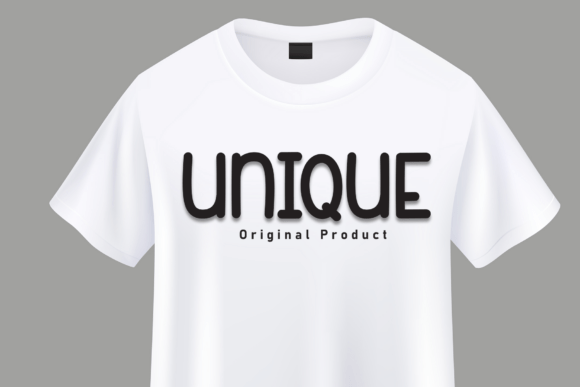
Discover the Power of Simple Minimalis Font and Bold Script Fonts in Design
In the world of typography, fonts play a crucial role in conveying messages, expressing emotions, and creating visual identities. Two popular font styles that have gained significant attention in recent years are Simple Minimalis Font and bold script fonts. In this article, we’ll explore the characteristics, uses, and benefits of these fonts, and how they can elevate your design game.
What is Simple Minimalis Font?
Simple Minimalis Font is a type of font that embodies the principles of minimalism. It is characterized by clean lines, simple shapes, and a limited color palette. This font style is perfect for designs that require a subtle yet sophisticated touch. Simple Minimalis Font is often used in branding, advertising, and digital media, as it provides a clear and concise visual message.
The simplicity of this font style makes it highly versatile, allowing it to be used in various design contexts, from logos and typography to social media graphics and website headers. Its understated elegance ensures that the focus remains on the content, rather than the font itself.
Benefits of Using Simple Minimalis Font and Bold Script Fonts
Using Simple Minimalis Font and bold script fonts in your designs can have several benefits, including:
- Improved Readability: Simple Minimalis Font and bold script fonts are highly legible, making them perfect for designs that require clear communication.
- Enhanced Visual Appeal: These font styles can add a touch of sophistication and elegance to your designs, making them more visually appealing.
- Boosted Brand Identity: Using a consistent font style across your designs can help establish a strong brand identity and create a cohesive visual message.
- Increased Versatility: Simple Minimalis Font and bold script fonts can be used in various design contexts, making them highly versatile and adaptable.
Tips for Using Simple Minimalis Font and Bold Script Fonts
Here are some tips for using Simple Minimalis Font and bold script fonts in your designs:
- Use Simple Minimalis Font for Body Text: Simple Minimalis Font is perfect for body text, as it provides a clear and concise visual message.
- Use Bold Script Fonts for Headlines: Bold script fonts are perfect for headlines and titles, as they add a touch of sophistication and elegance.
- Experiment with Font Pairings: Experiment with pairing Simple Minimalis Font and bold script fonts with other font styles to create a unique and visually appealing design.
- Consider the Context: Consider the design context and audience when choosing a font style. For example, a bold script font may be more suitable for a luxury brand, while a Simple Minimalis Font may be more suitable for a corporate brand.
In conclusion, Simple Minimalis Font and bold script fonts are two powerful font styles that can elevate your design game. With their clean lines, simple shapes, and bold personalities, these font styles can add a touch of sophistication and elegance to any design. By understanding the characteristics, uses, and benefits of these fonts, you can create visually appealing designs that communicate your message effectively.
Whether you’re a designer, marketer, or entrepreneur, Simple Minimalis Font and bold script fonts are essential tools to have in your design arsenal. So, next time you’re working on a design project, consider using these font styles to add a touch of style and sophistication.
- How can I use Simple Minimalis Font and bold script fonts in my designs? You can use Simple Minimalis Font for body text and bold script fonts for headlines and titles. Experiment with font pairings and consider the design context and audience when choosing a font style.